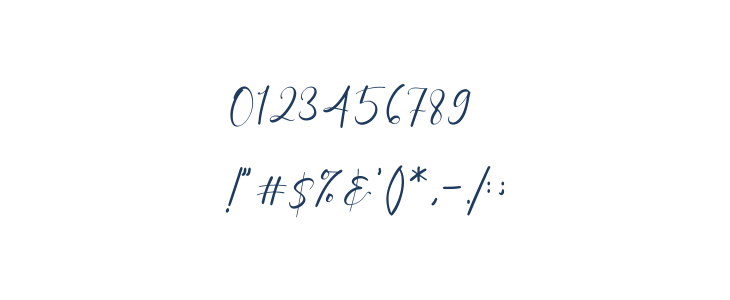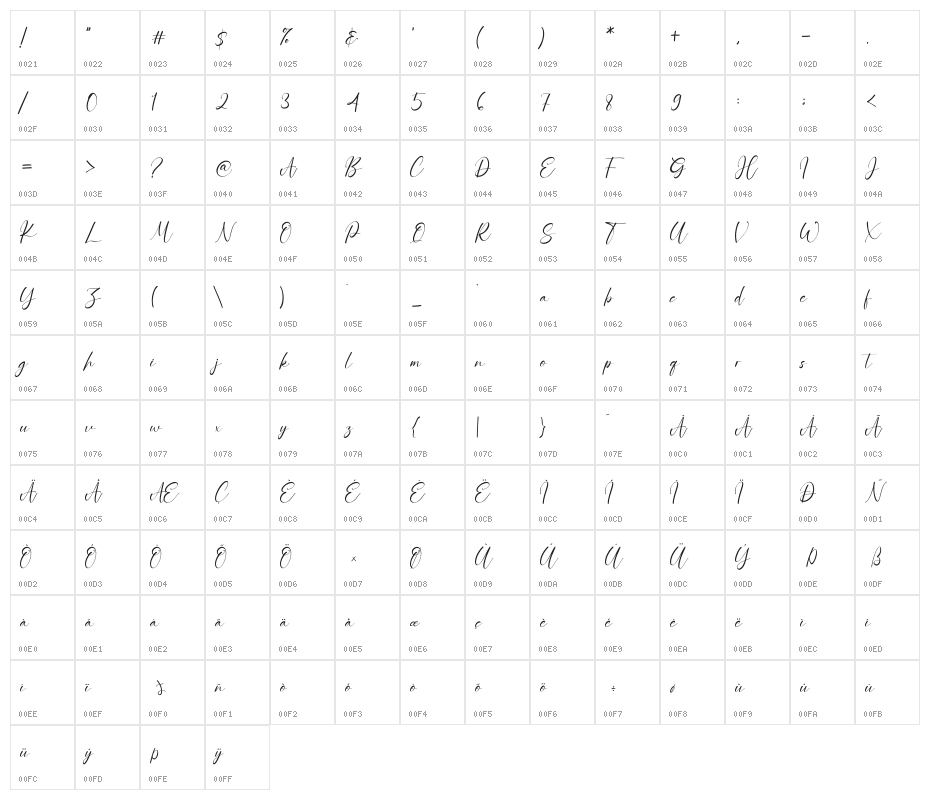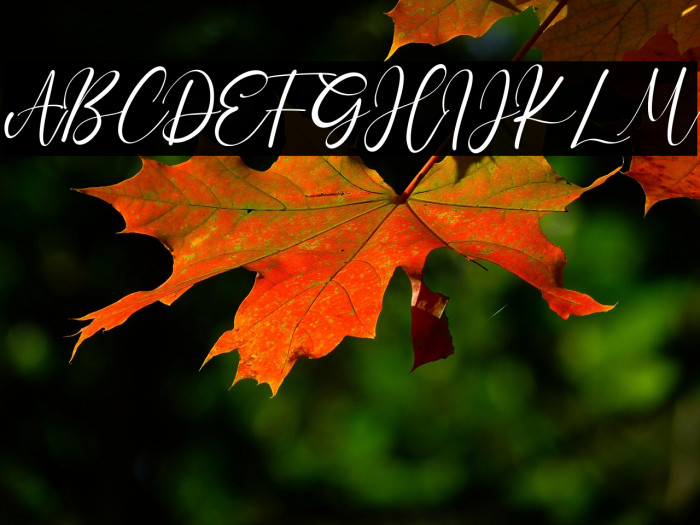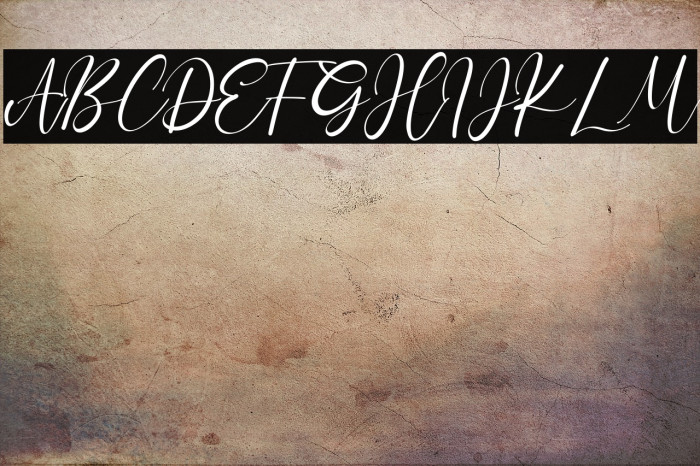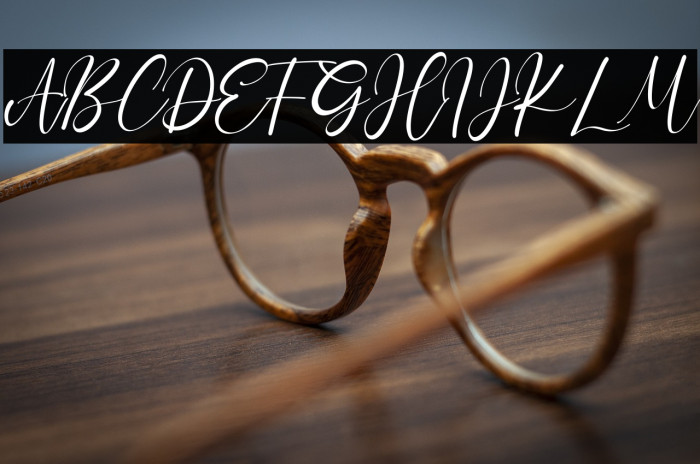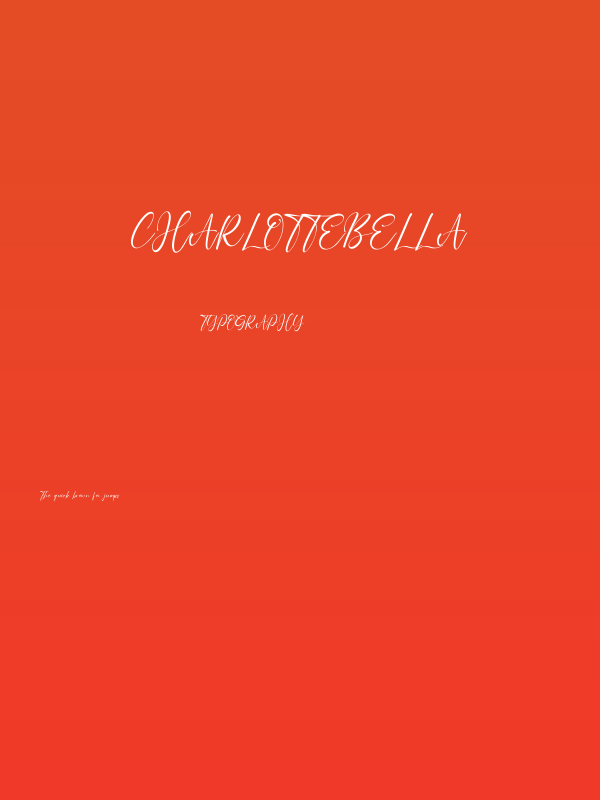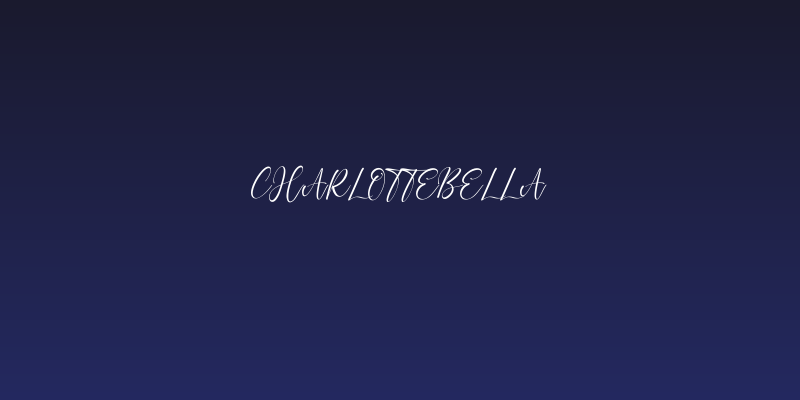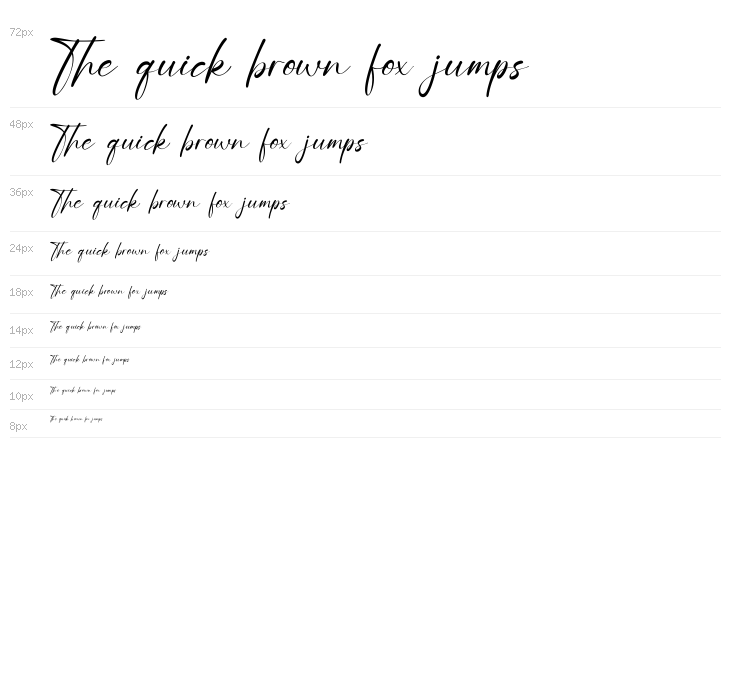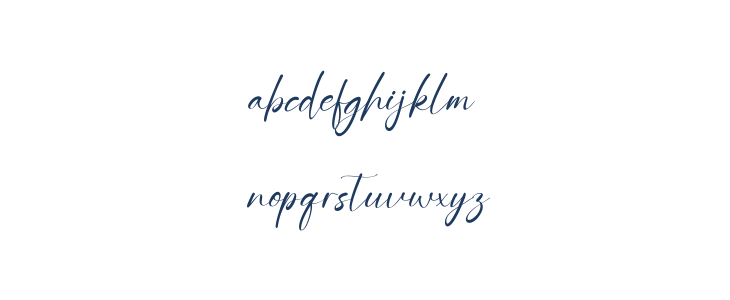
CharlotteBella Font
CharlotteBella Description
This elegant script font features a flowing, cursive style with high contrast between thick and thin strokes. The uppercase letters are ornate and sweeping, while the lowercase letters maintain a graceful, connected appearance. The numerals and special characters complement the overall design with their stylish curves and loops. This font exudes sophistication and is perfect for adding a touch of class to any project.